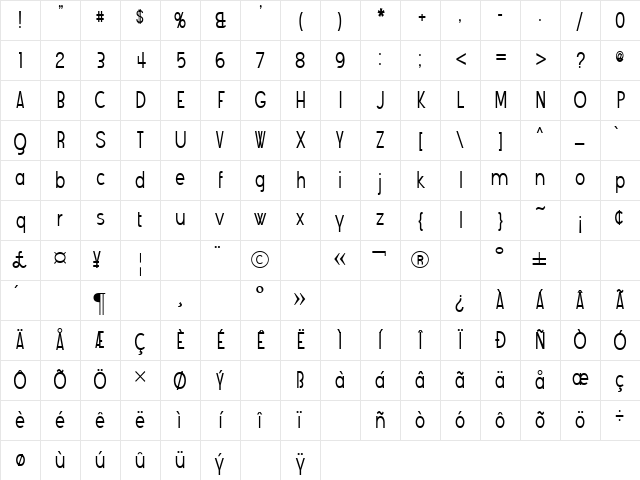
Angostura Regular Free Font
Angostura Regular
Angostura Family
Complete Angostura Regular glyph index. Displaying only characters natively supported by Angostura Regular font.
Design Context for Angostura
Angostura is a composed and adaptable typeface that performs quietly and consistently across a wide range of design contexts.
Pro Tip: Use Angostura in both headline and body roles to test its range before committing to a single application.